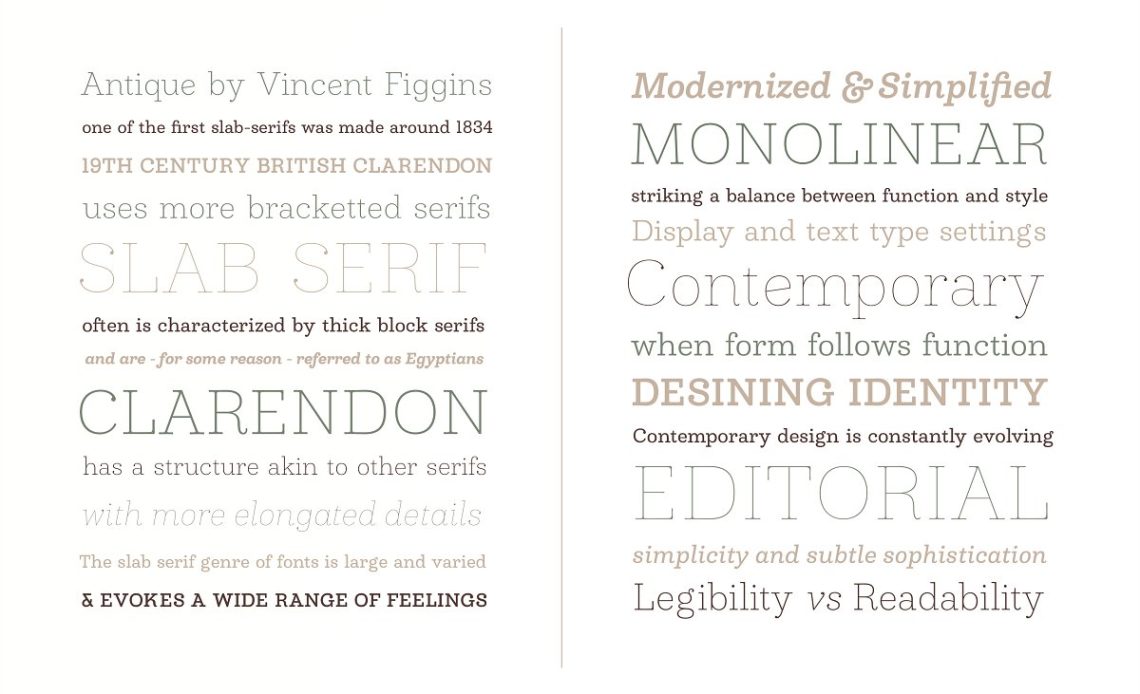
Looking for the perfect font for your next poster or heading design project? Look no further than Madley Typeface by Kimmy Design. This contemporary slab serif typeface is the ideal choice for anyone looking to elevate their designs and make them stand out from the crowd.
With its monolinear stems, elongated block serifs, and teardrop terminals, Madley Typeface has a unique and modern look that is sure to catch the eye. And with a range of weights that goes from a delicate Hairline to a heavy Black, this font is incredibly versatile and can be used for both text and display text settings.
But what really sets Madley Typeface apart are its extensive Opentype features. With a wide array of swashes assigned up to 11 for select characters, combining ligatures in capital unicase settings, and stylistic alternates for some letters, this font offers a level of customization that is truly unparalleled.